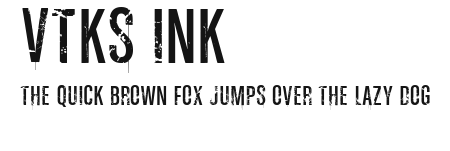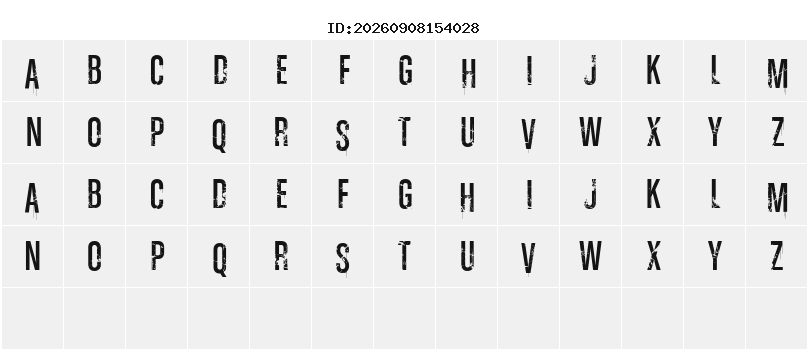
• Font Name: vtks ink
• Full Font Name: vtks ink
• Designer: douglas vitkauskas
• Manufacturer: douglas vitkauskas
About vtks ink.ttf
vtks ink.ttf is a modern, elegant sans-serif font designed for ultimate readability and visual harmony. Perfect for branding, headlines, web design, and print materials.